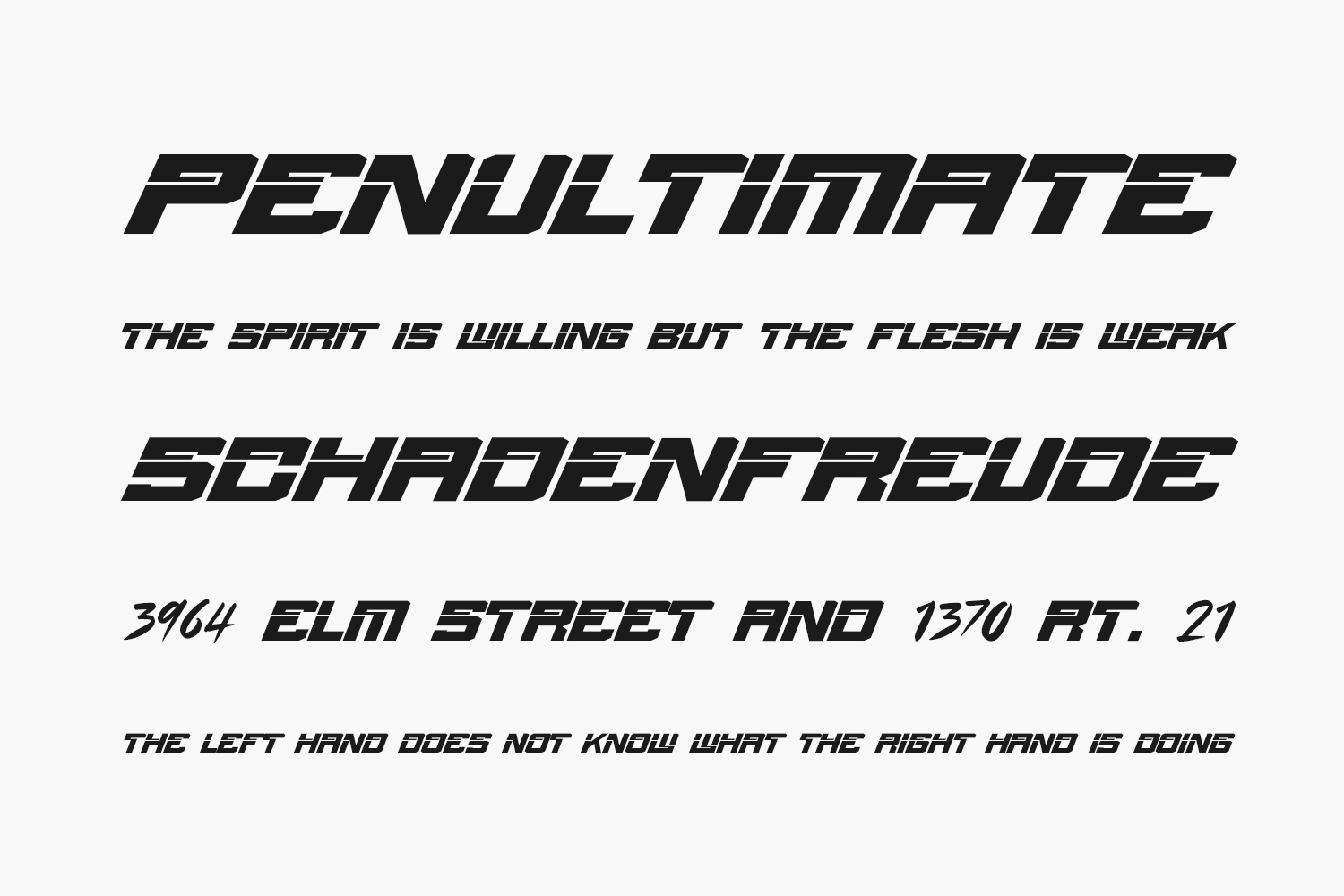
Calderious Free Font is a bold and robotic display font. This font is ideal for writing web designs, business cards, or pretty much anything else that requires a techno and sporty touch. Calderious Free Font was designed by TypeScrib Studio is a demo and free for personal use only. Please purchase the full version for commercial use.